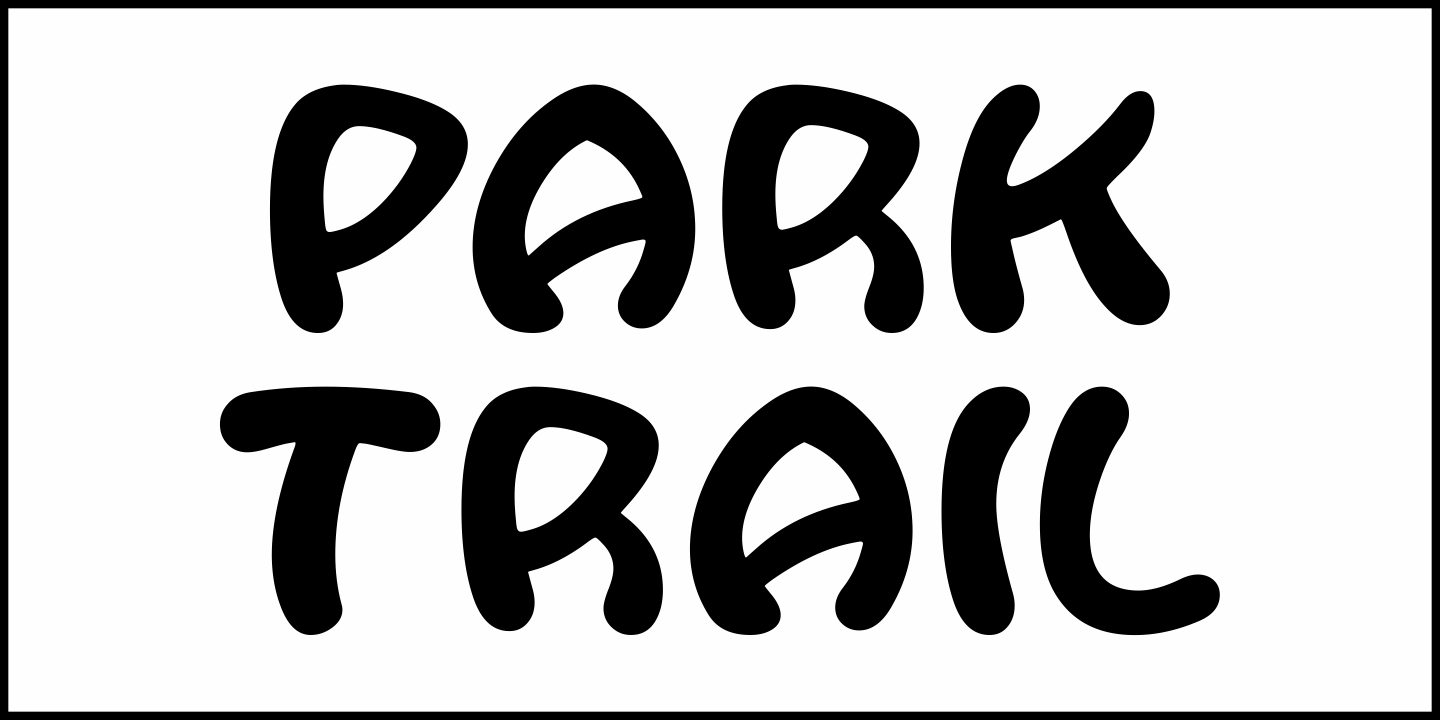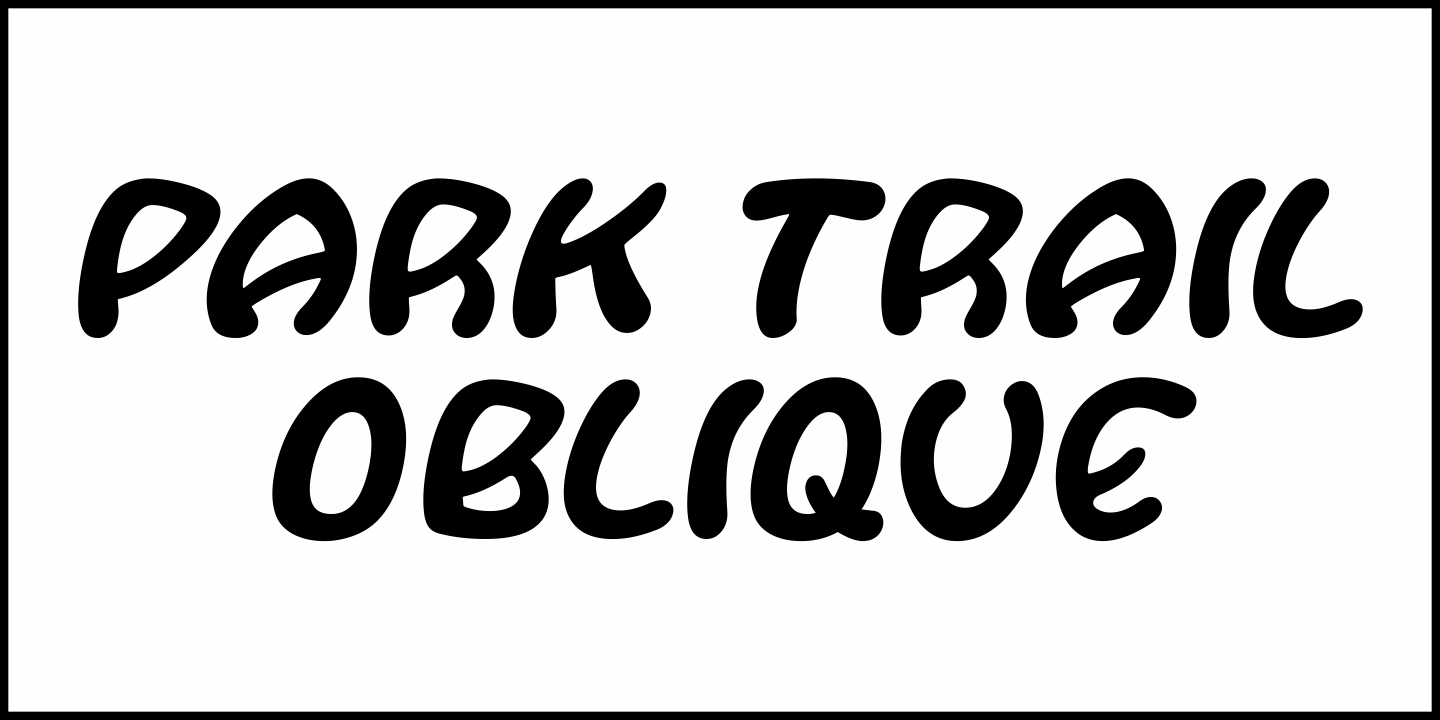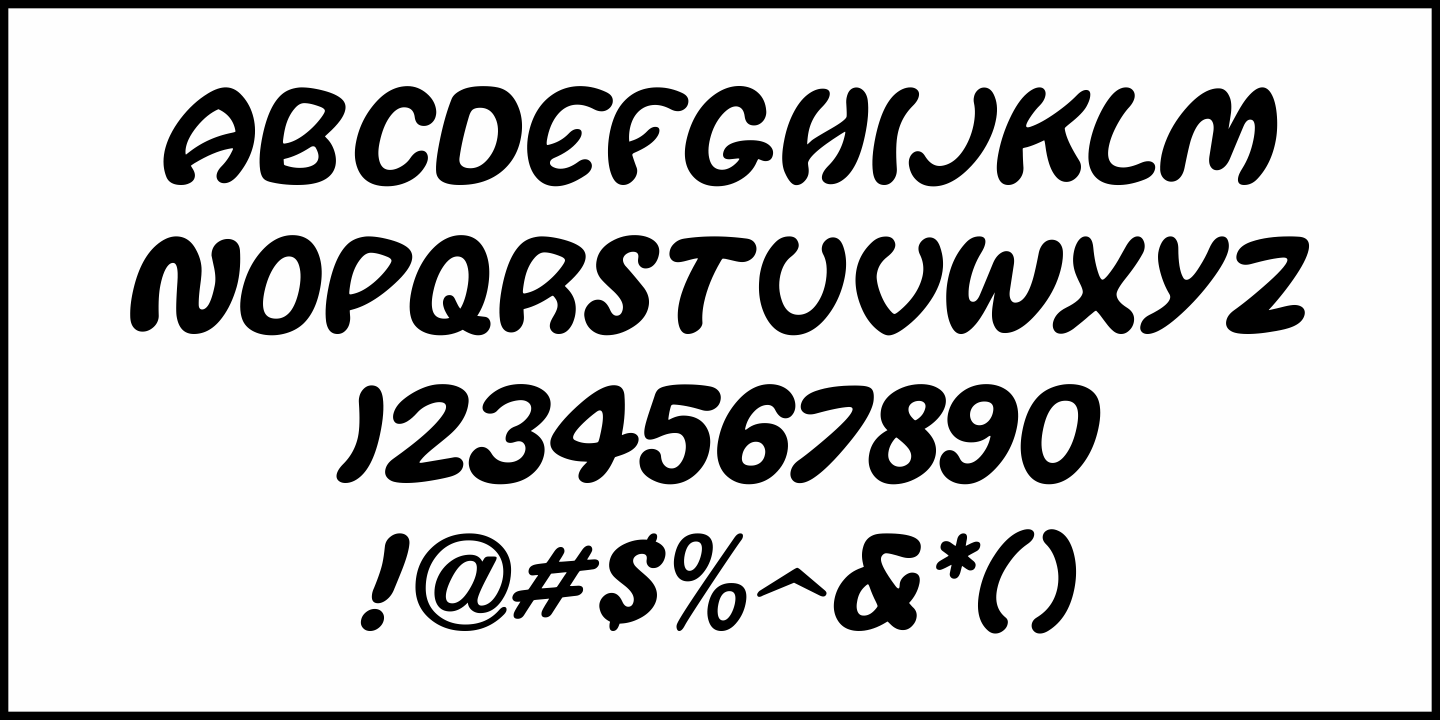
Park Trail
The bubble-like lettering of Park Trail JNL was modeled from a photo taken in 1962 of a hand-routed sign at Matheson Hammock (a scenic park located near Biscayne Bay in Coral Gables, Florida).
Casual and playful in nature, it's also a prime example of lettering made by individuals who are (generally) not trained in typography.
This is not necessarily a bad thing, because sometimes a project needs letter forms that are innocent and whimsical - free from the structured Romans and Scripts in order to convey a relaxed and informal, yet appealing message in their own unusual way.
Park Trail JNL is available in both regular and oblique versions.